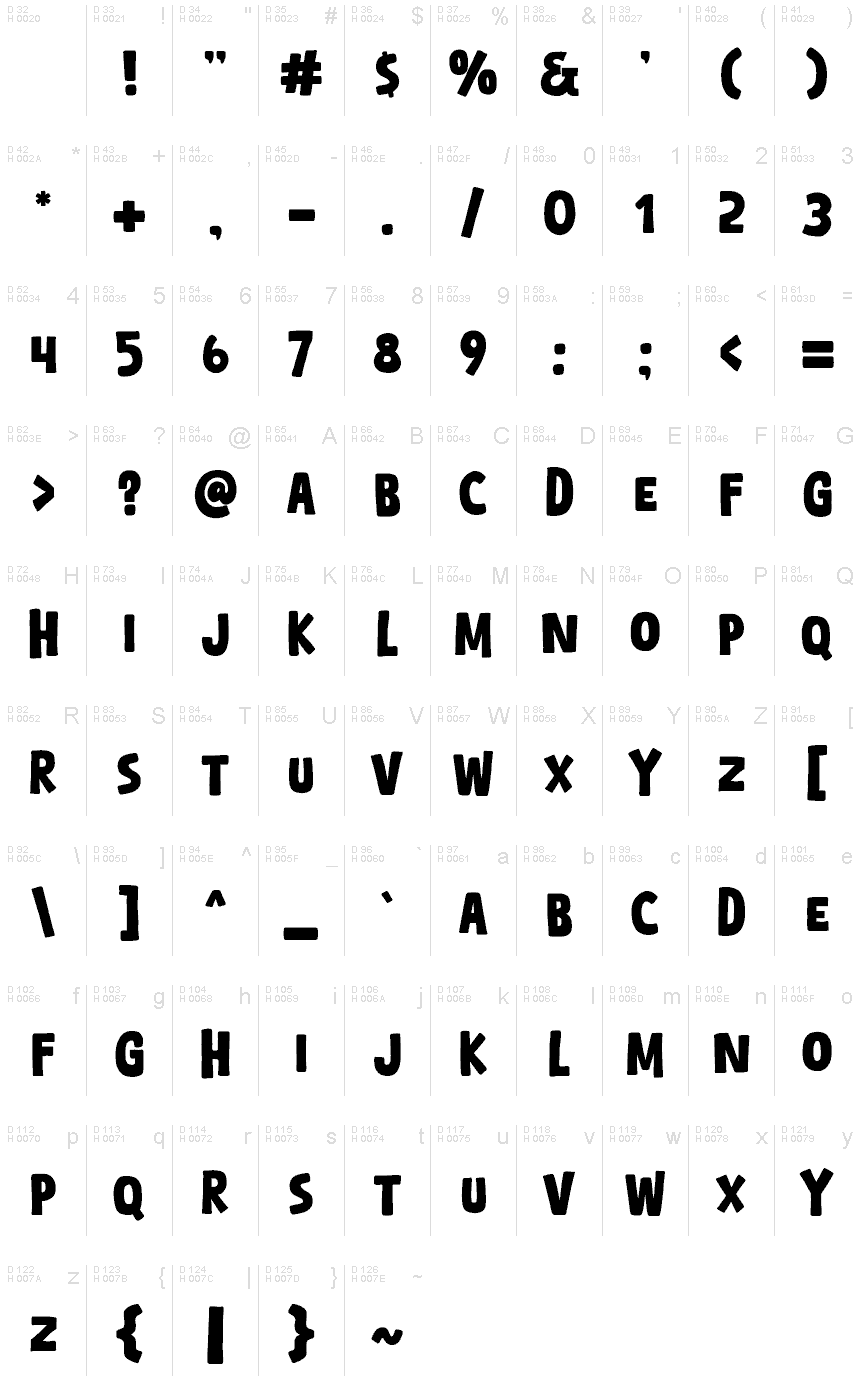
Yay Holiday
Yay Holiday font is a condensed display typeface with cartoon style, a description that instantly projects fun and excitement. Designed as a combo of bold blocky lettering and retro inspiration by Khurasan, it features solid forms with playful curves for the perfect look. Its casual mood makes it inviting and readable so readers can get the message at first glance.
This fun free font has its specific use which includes magazine covers, event invitation cards, social media designs, flyers, movie posters or quotes in movies/series. It can also be used for newspapers aiming to engage readers emotionally, street signs to draw attention of passersby or traffic signs within theme parks or museums.